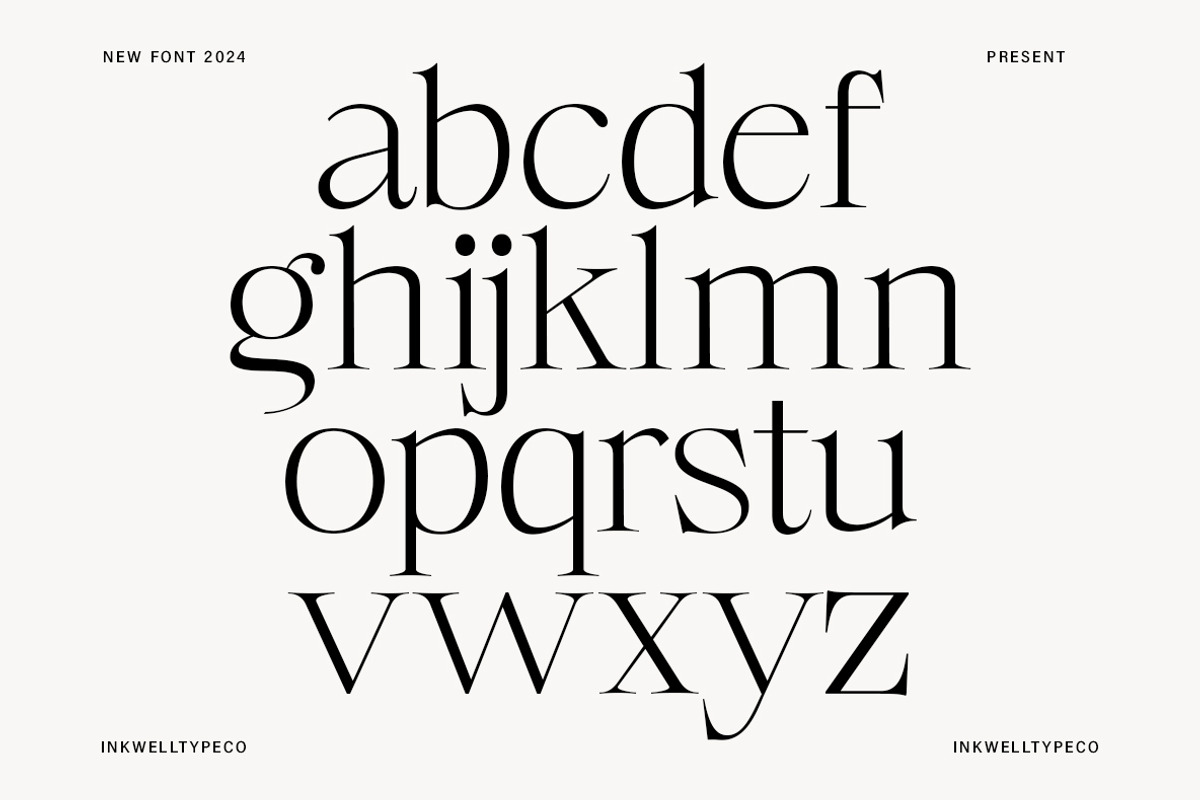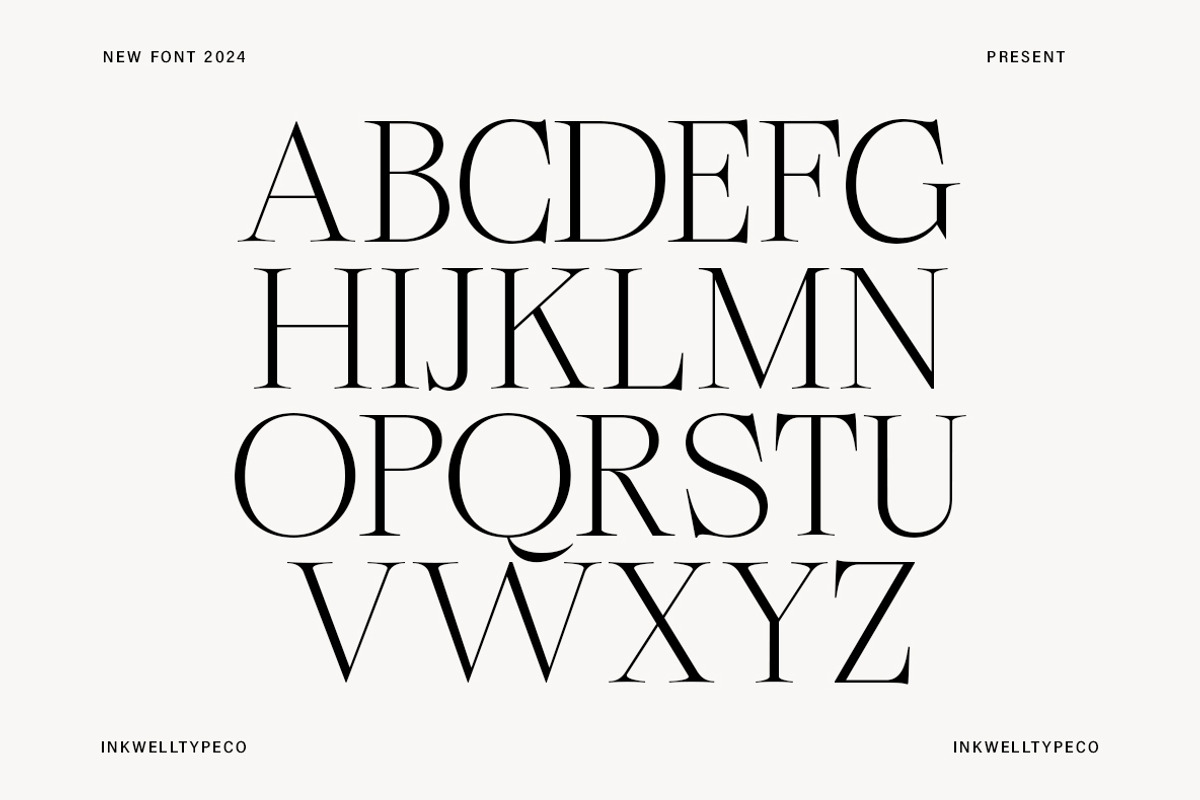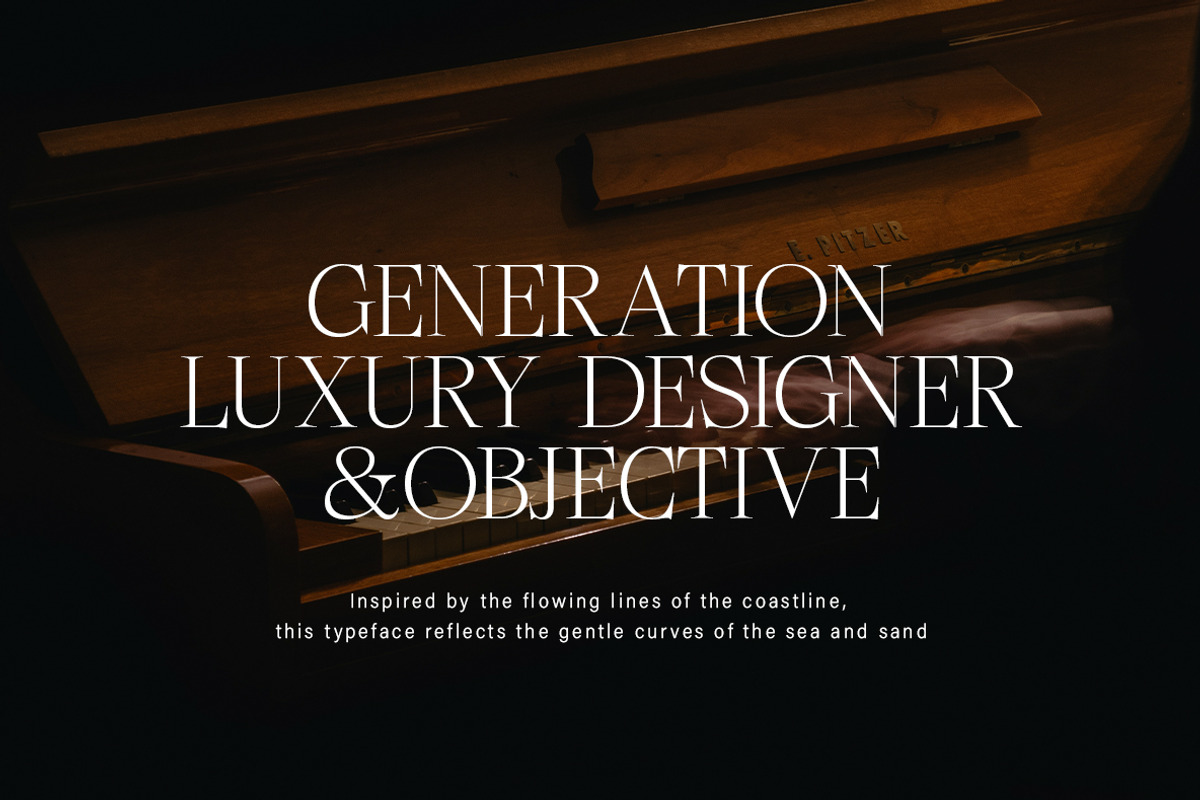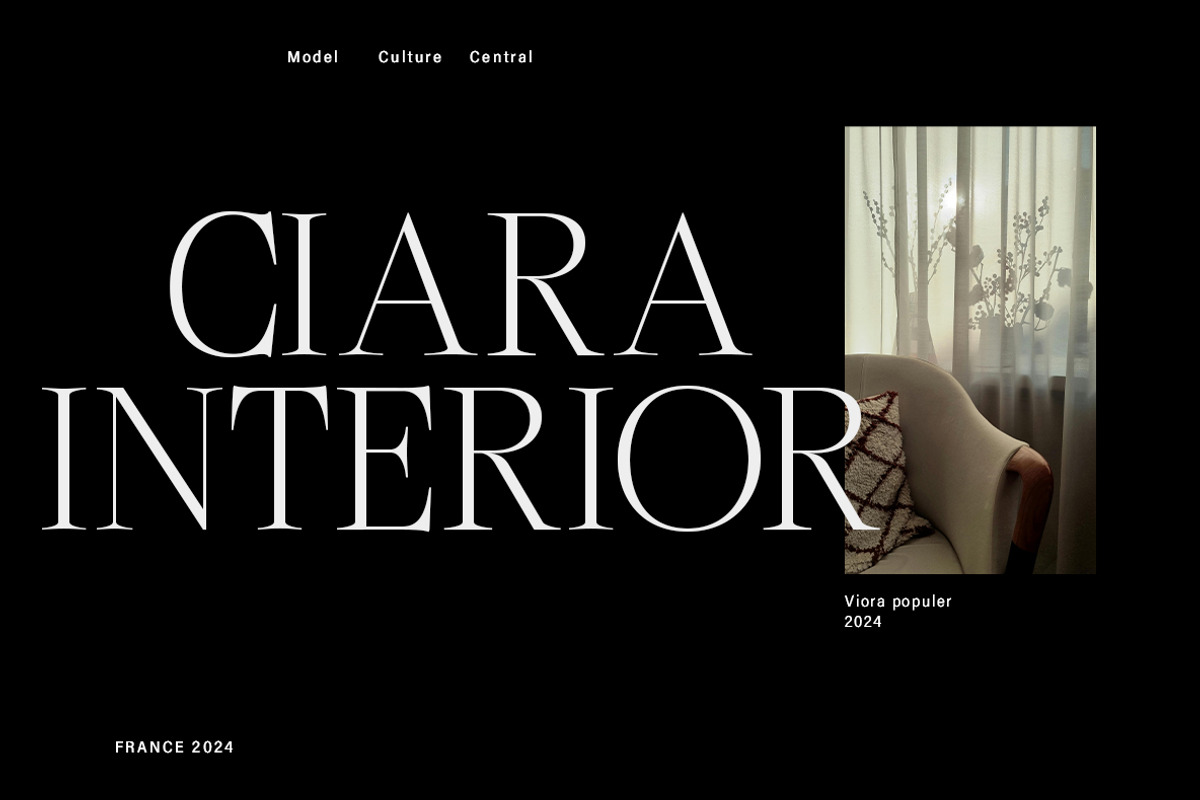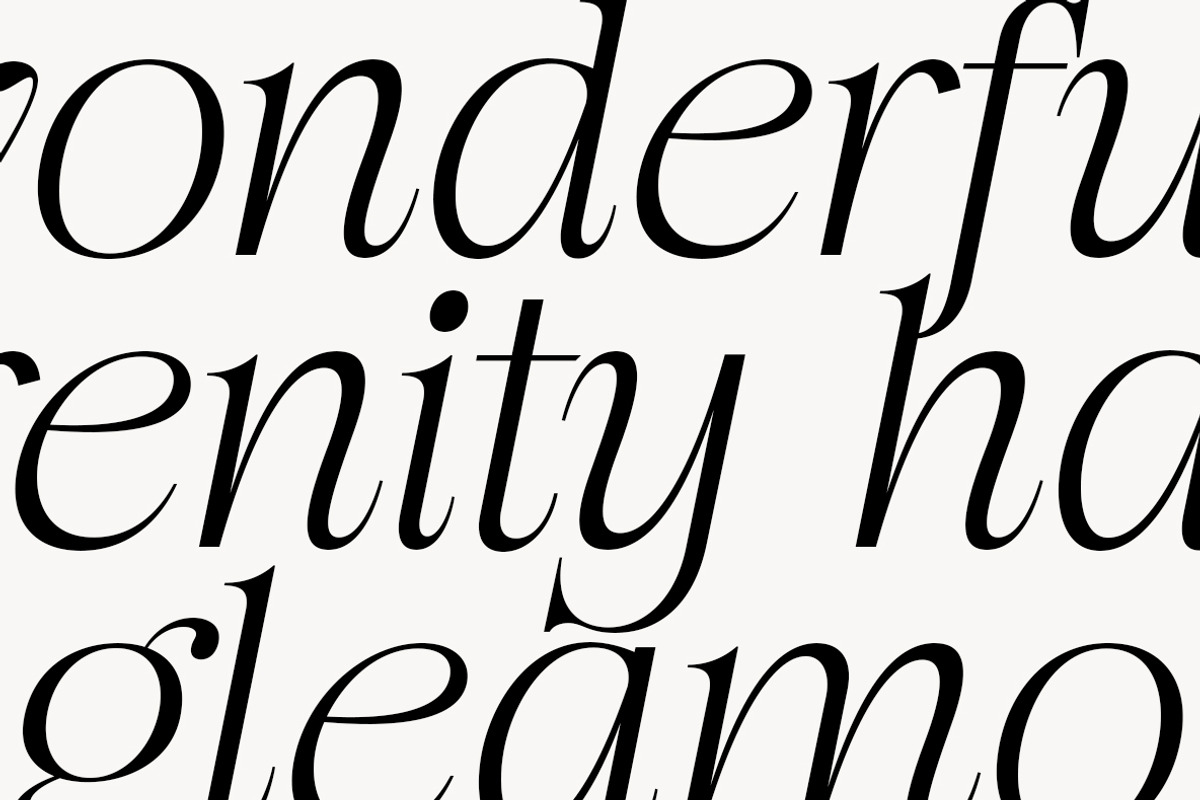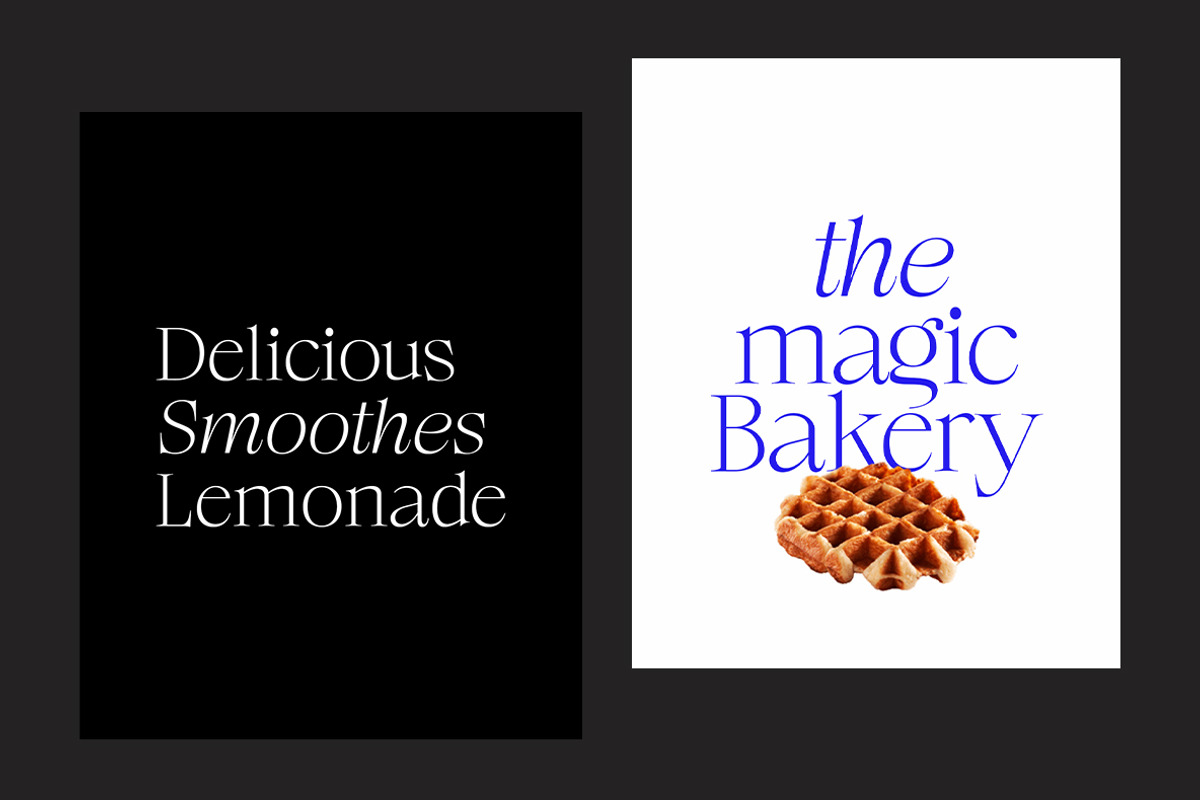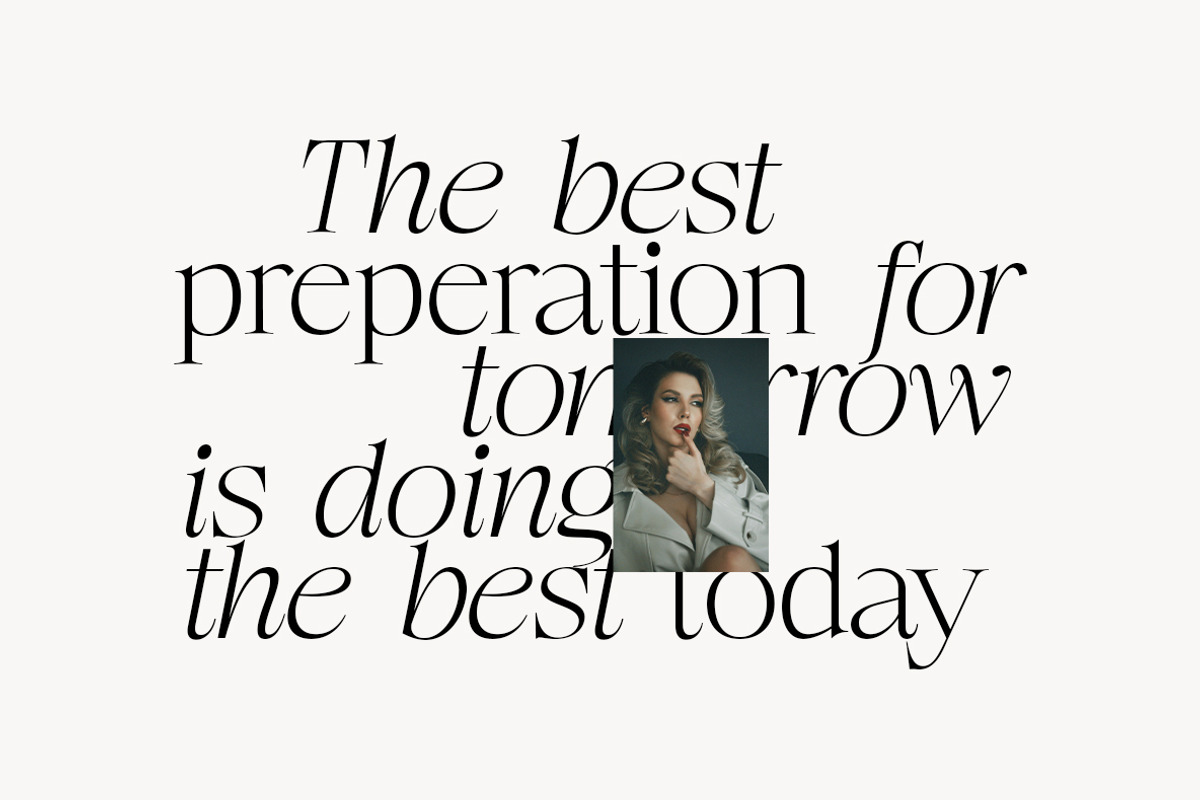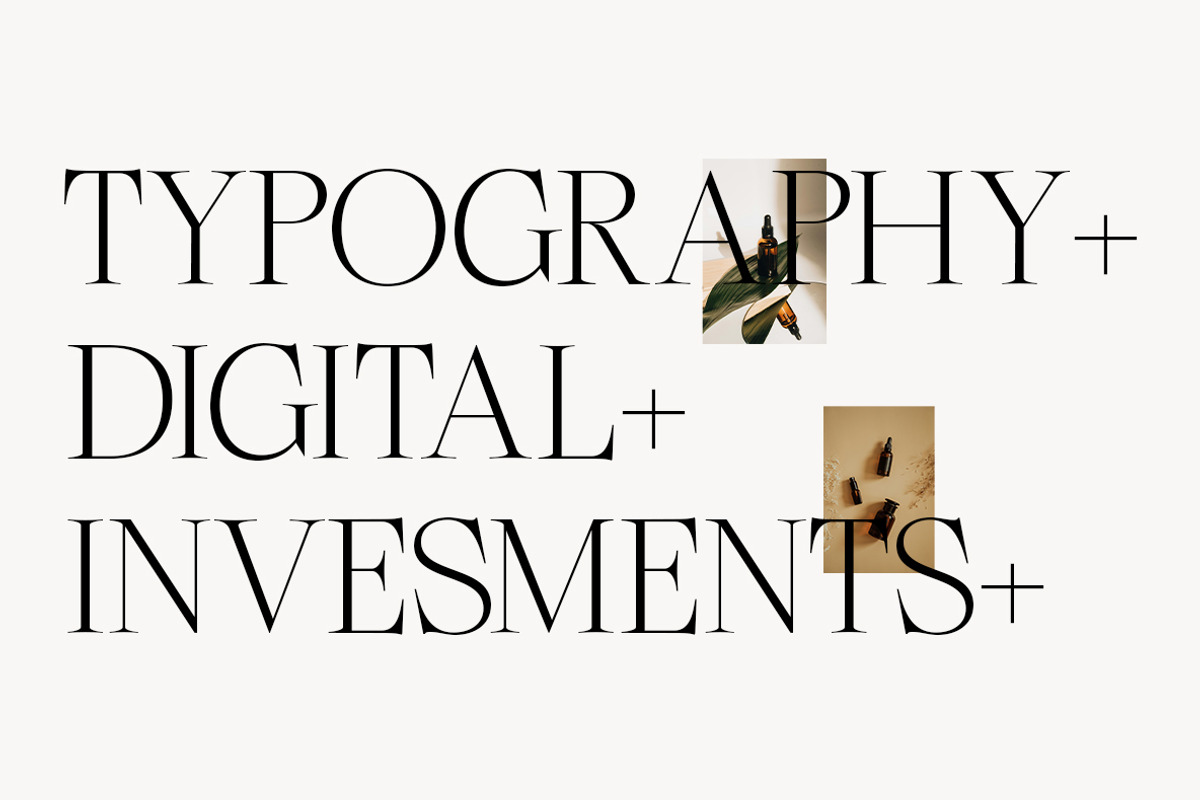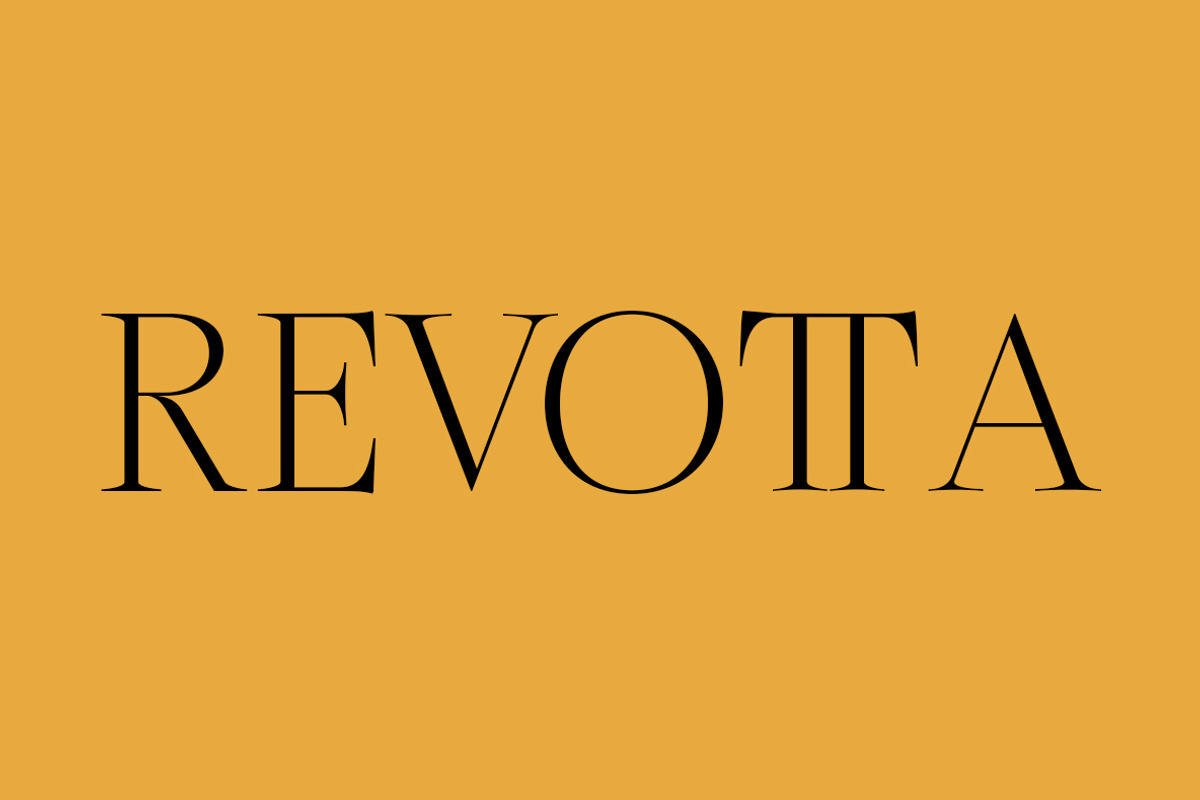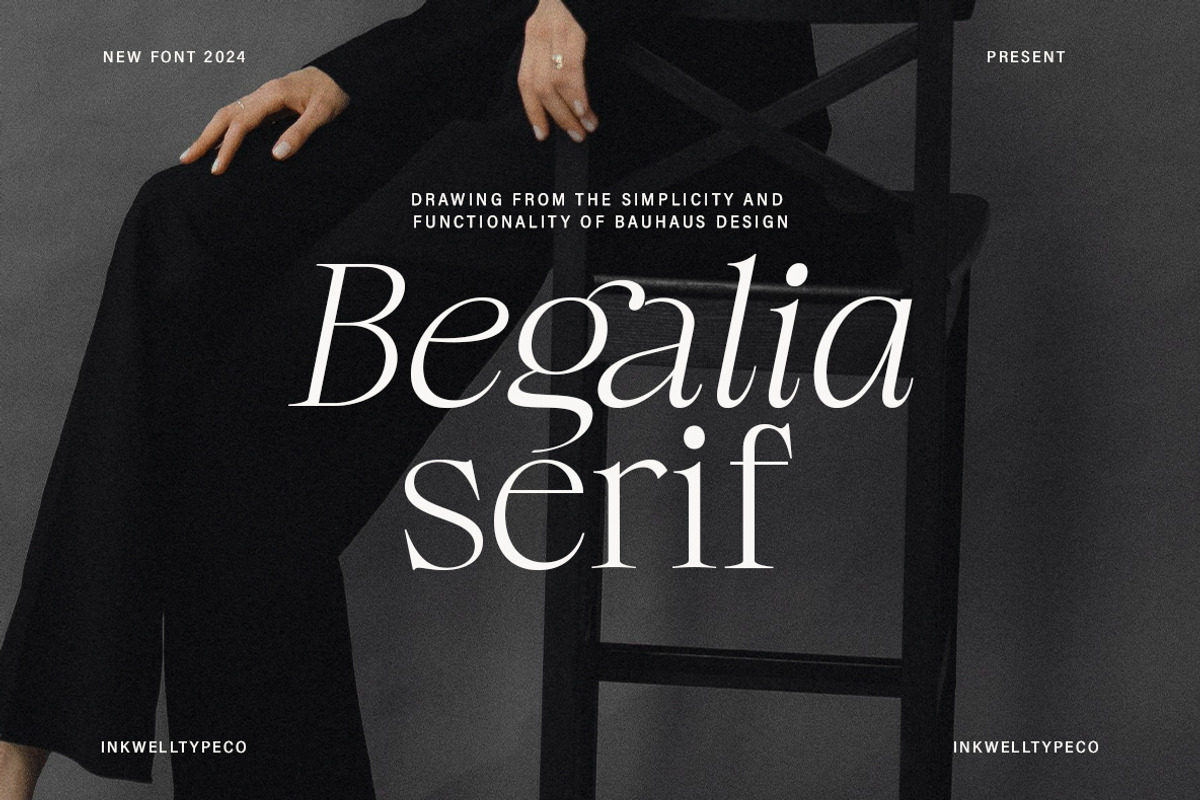
Begalia Serif - Elegant Typeface
Introducing Begalia, a contemporary serif typeface inspired by the simplicity and functionality of Bauhaus design principles. Begalia embodies elegance with its clean, geometric forms and refined serif details, making it a versatile choice for various design projects. This typeface strikes a balance between modernity and tradition, featuring sharp edges and delicate curves that offer a timeless appeal.
Perfect for luxury branding, editorial layouts, and sophisticated digital and print media, Begalia elevates any project with its high-end aesthetic. Its versatile nature allows it to be equally effective in large headlines or small body text, maintaining legibility and style across all applications. Embrace the beauty of simplicity and elevate your designs with Begalia, where classic meets contemporary in perfect harmony.